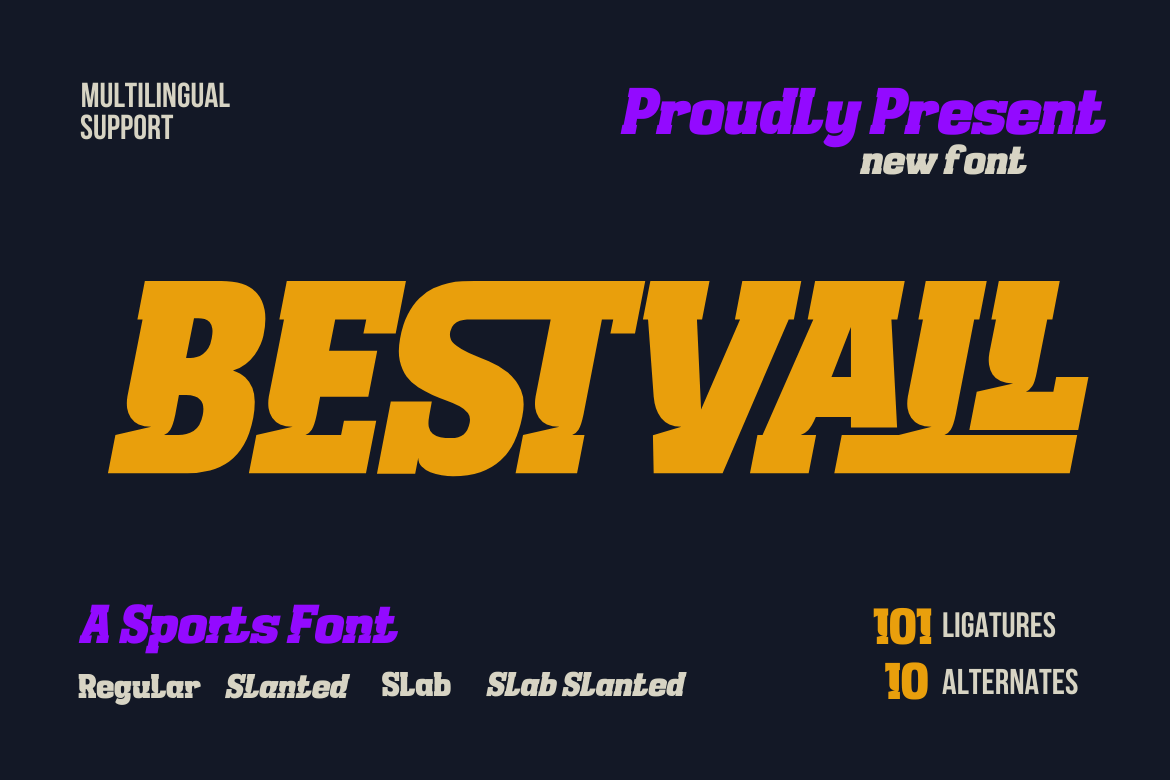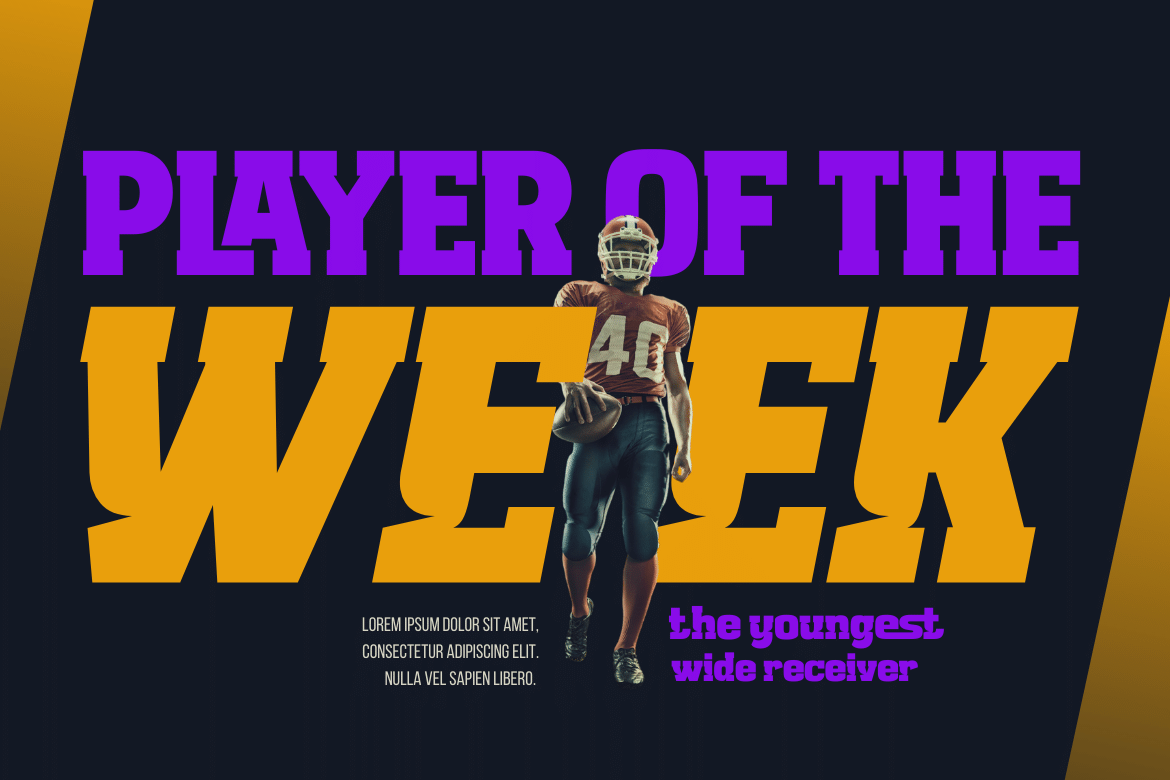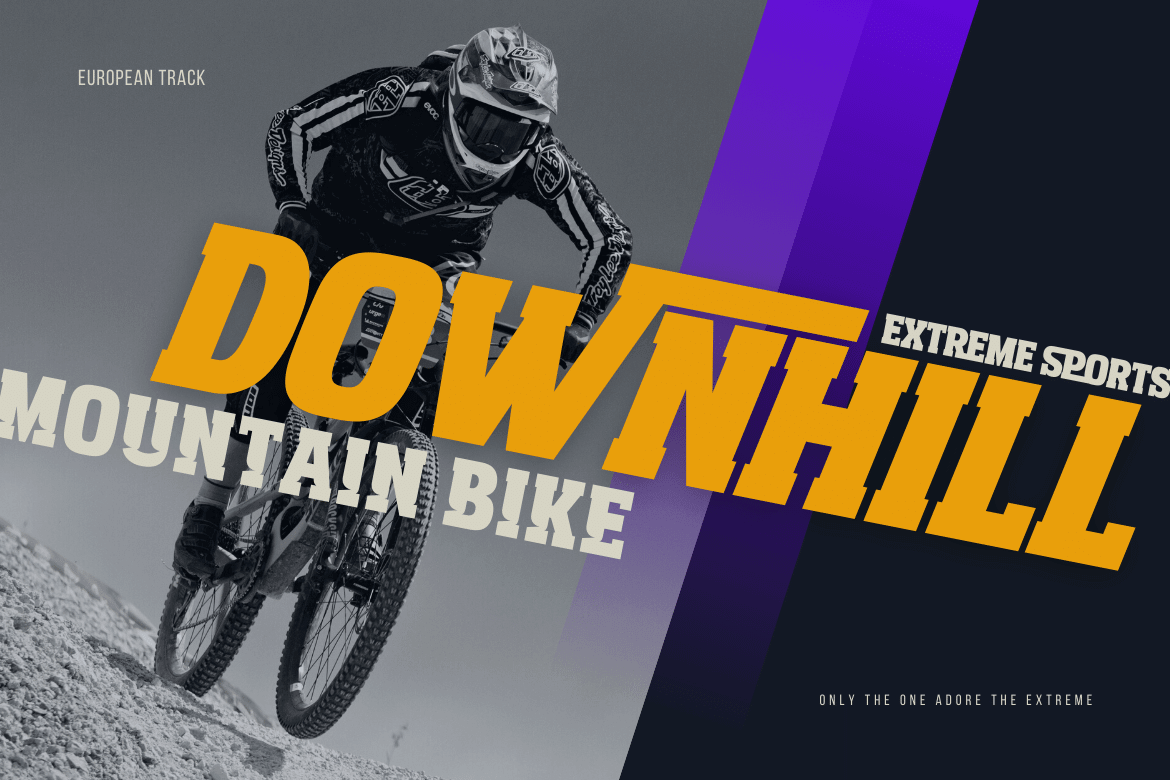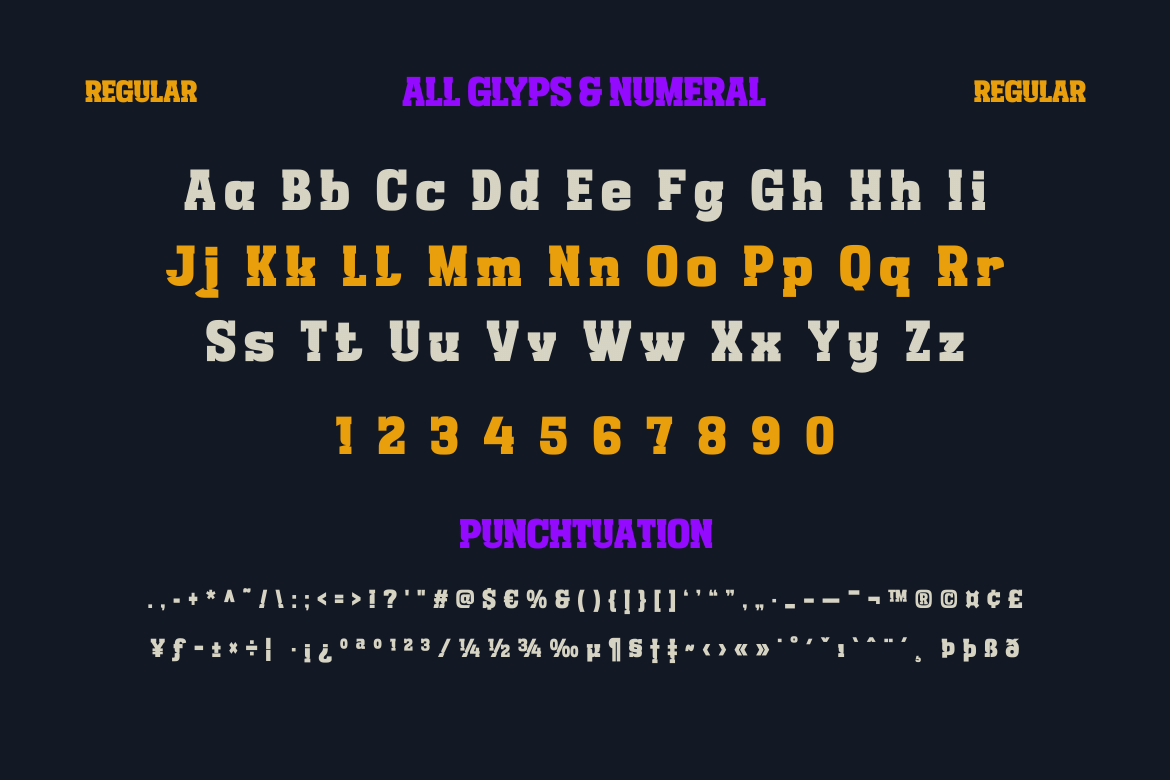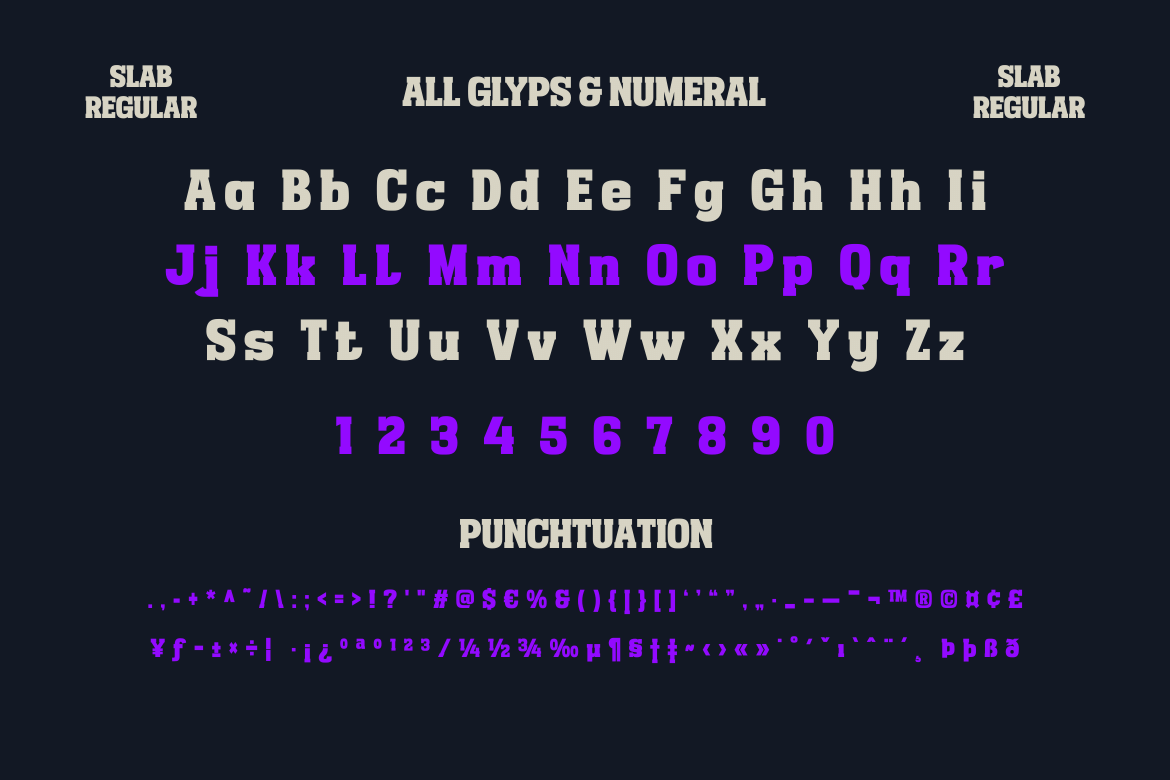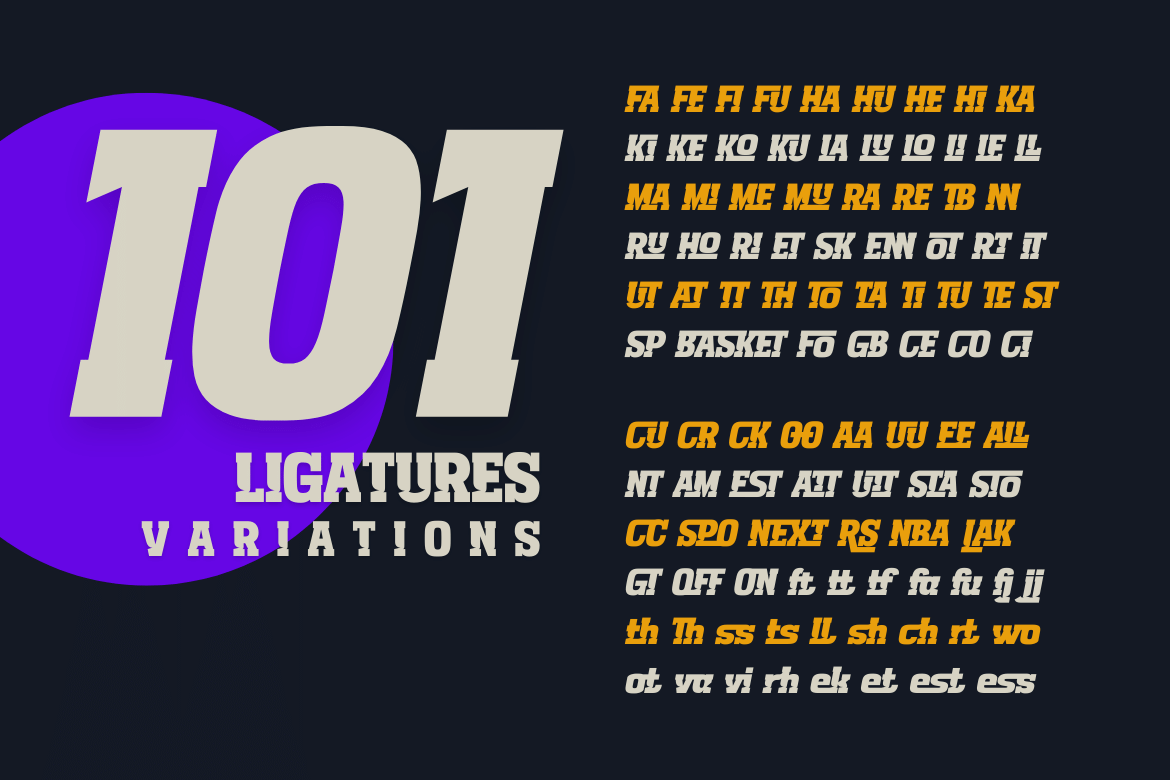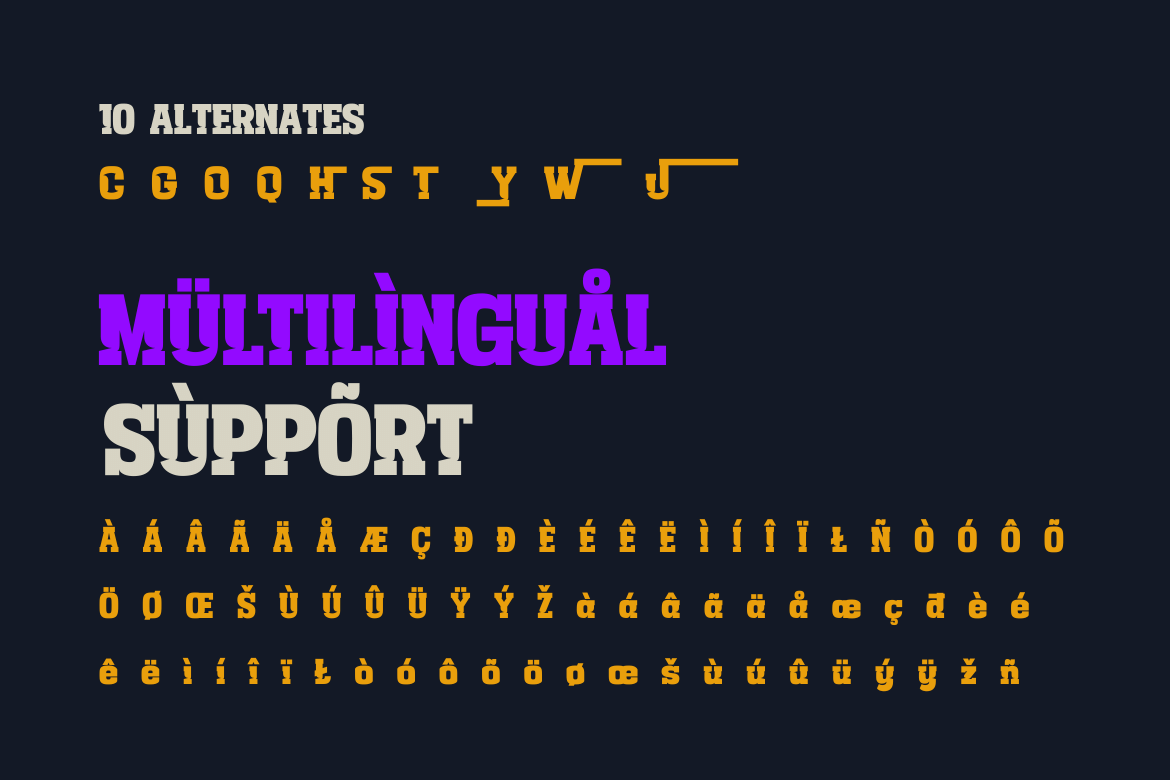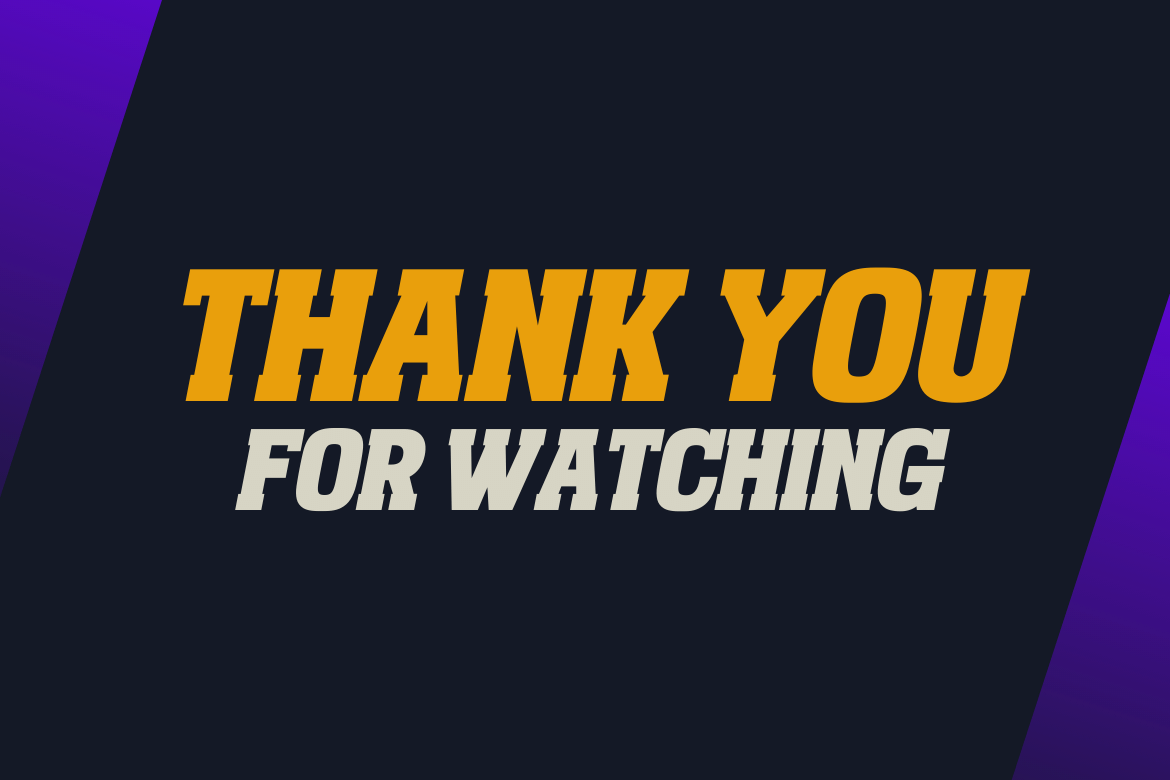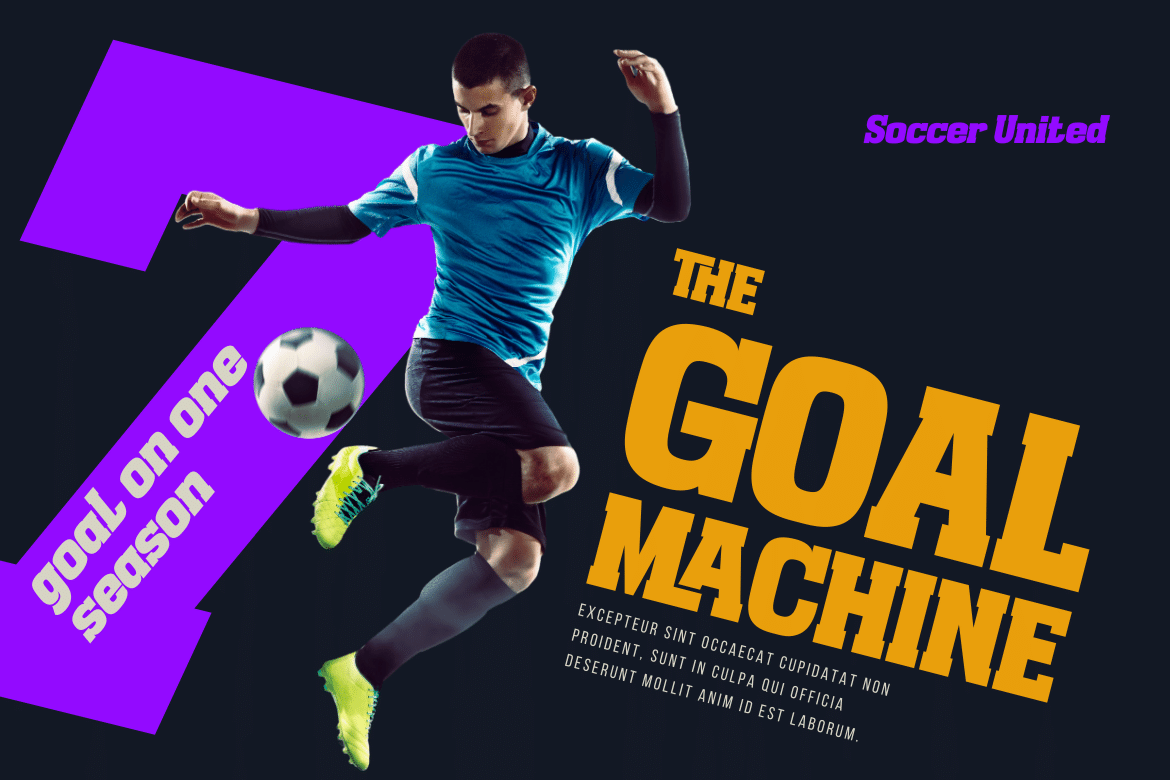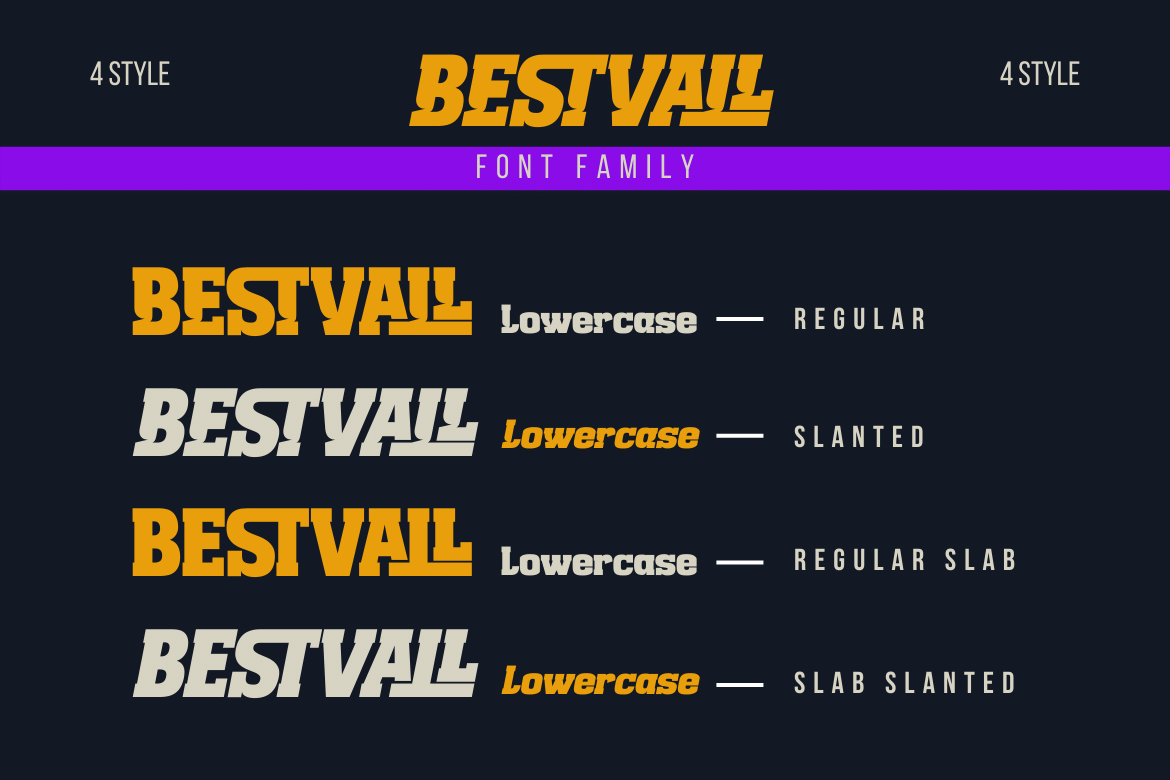
5. BESTVALL | Athletic Font
BESTVALL | Athletic Font
The BESTVALL type family is a highly athletic and dynamic typeface capable of evoking the energy of sport in its literal and historical form. Building on traditional athletic typefaces, BESTVALL font implements new shapes inspired by historical trends and modern typography, giving it the ability to add personality to any set of words. Features include slab and display types, oblique styles, multiple ligatures, and style alternatives.
This display typeface has been designed to stand out and grab the attention of a wide audience.